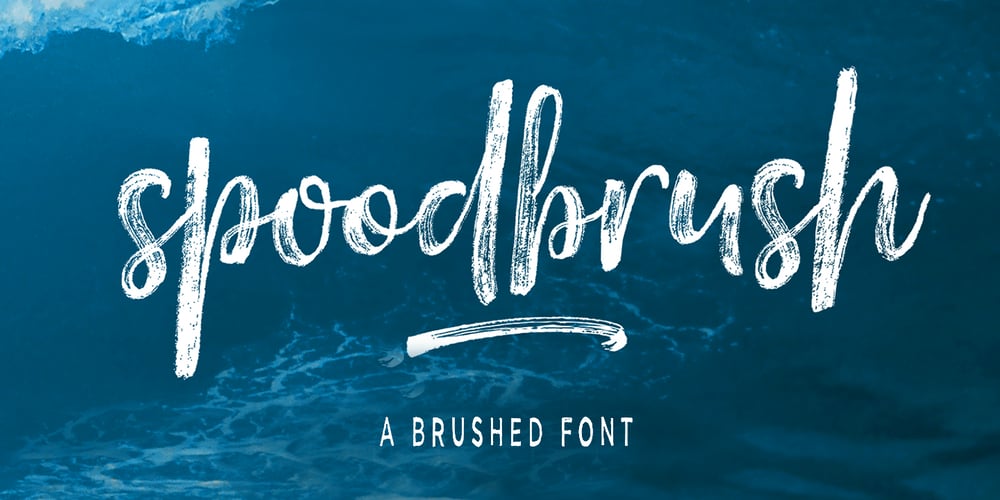
Spoodbrush Font Family was designed by Mauli Zari and published by Dhan Studio. Spoodbrush contains 6 styles and family package options. Spoodbrush is a new lowercase brushed textured font family designed to perfectly combine the different styles with one another and allow you to create beautiful designs with a personal touch. It also contains some ligatures and swashes and additionally a Spoodbrush Sans style. Perfect for branding, logos, product packaging, posters, invitations, greeting cards, news, blogs, and everything requesting personal charm. Fonts Included : Spoodbrush One Spoodbrush Two Spoodbrush Bold Spoodbrush Slant Spoodbrush Sans Spoodbrush Extra